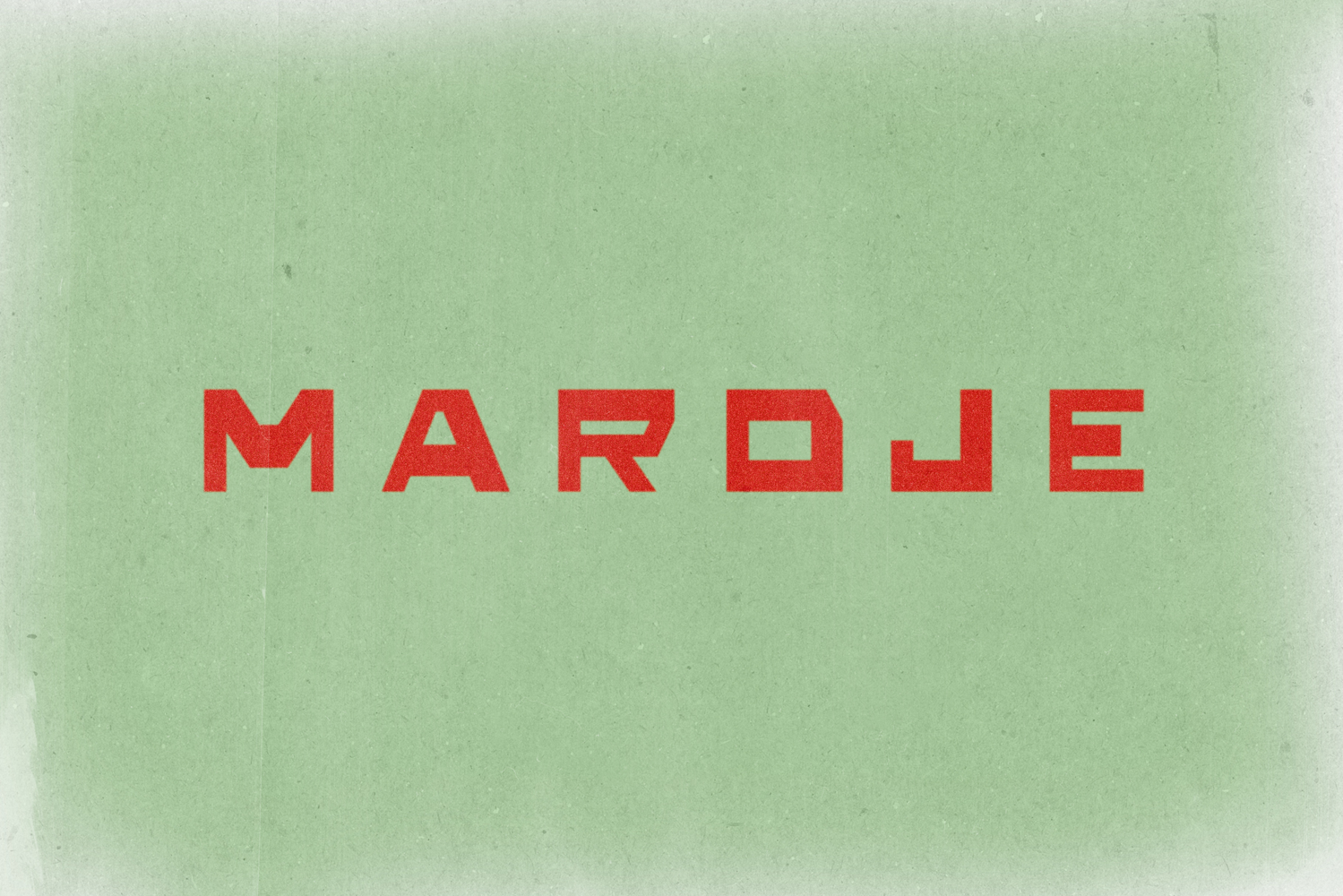
Mardje Font
This typeface is a disciplined revival of early 19th-century Art Deco signage, specifically the kind cut into stone, metal, and concrete on civic buildings and industrial façades. The design rejects ornament for ornament’s sake. Instead, it focuses on geometry, weight, and permanence.The letterforms are constructed from rigid, modular shapes with squared terminals and deliberate gaps.
Best used for: Vintage or heritage-driven branding, Architectural, industrial, or institutional identities, Posters, signage, album covers, and apparel.